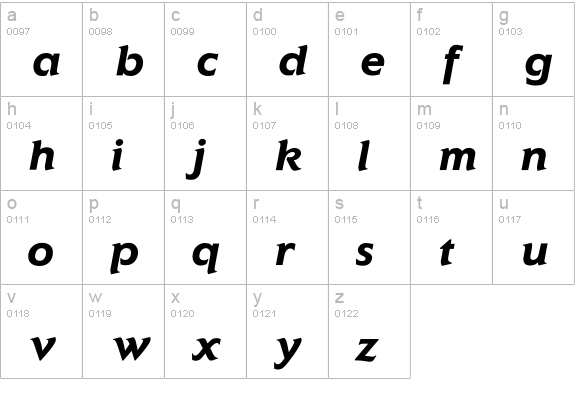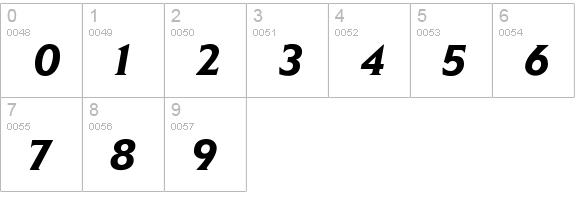
ElanBoldItalic Font Details
The ElanBoldItalic font exudes elegance and sophistication with its bold yet graceful italic design. This font is perfect for adding a touch of modernity and style to your projects, whether for branding, advertising, or editorial purposes. The sleek lines and unique curves of ElanBoldItalic make it a versatile choice for both print and digital designs. What's even better is that ElanBoldItalic is available for free download at FontsMarket.com. This means you can easily access this premium font without any cost, allowing you to elevate your creative projects without breaking the bank. Don't miss out on the opportunity to enhance your designs with the timeless appeal of ElanBoldItalic - download it today and see the difference it can make!